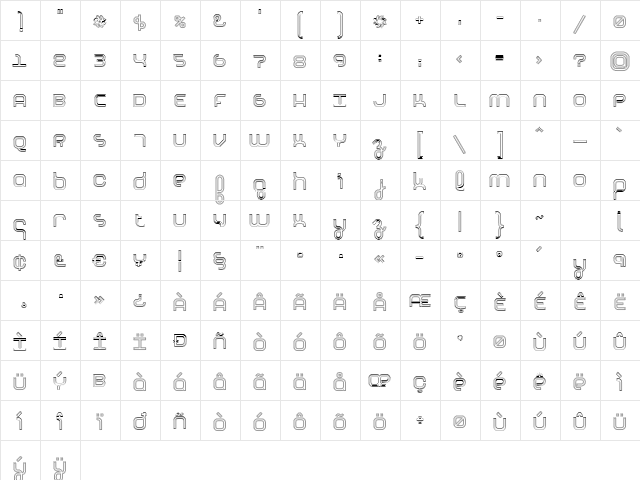
BasixDouble Outline Regular
Design Context for BasixDouble Outline Typeface
BasixDouble Outline brings ornamental detail and strong personality to headlines and identities, where visual impact matters more than quiet functionality.